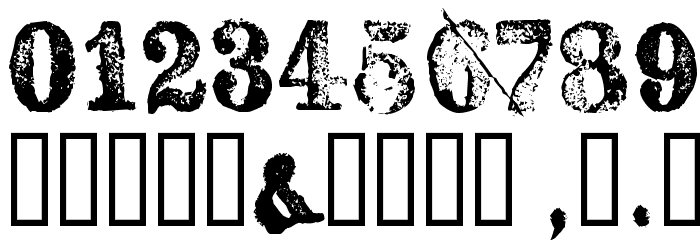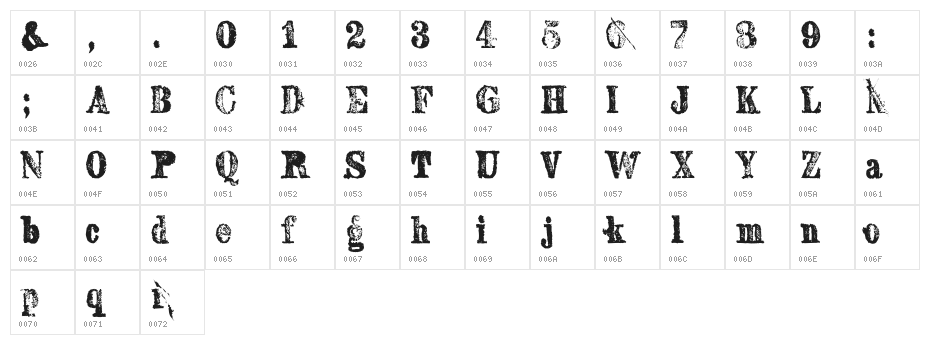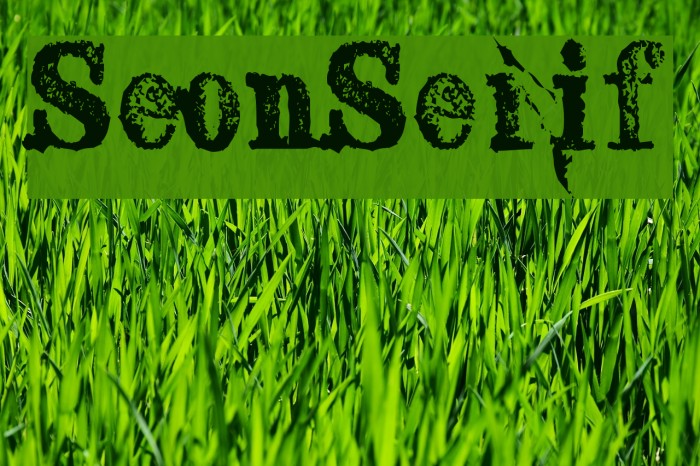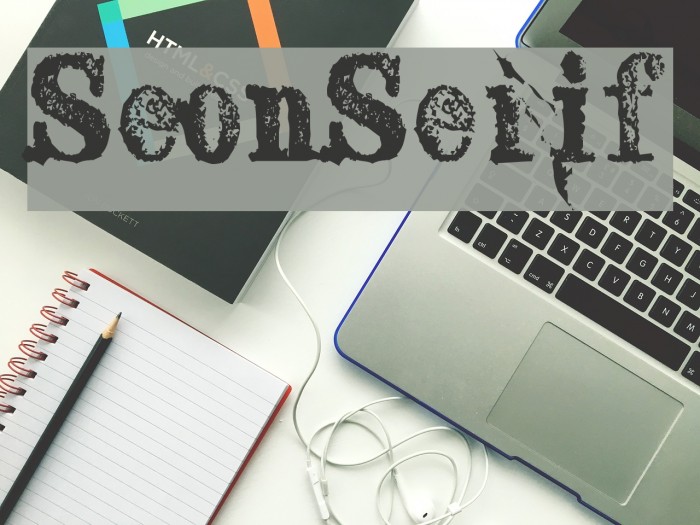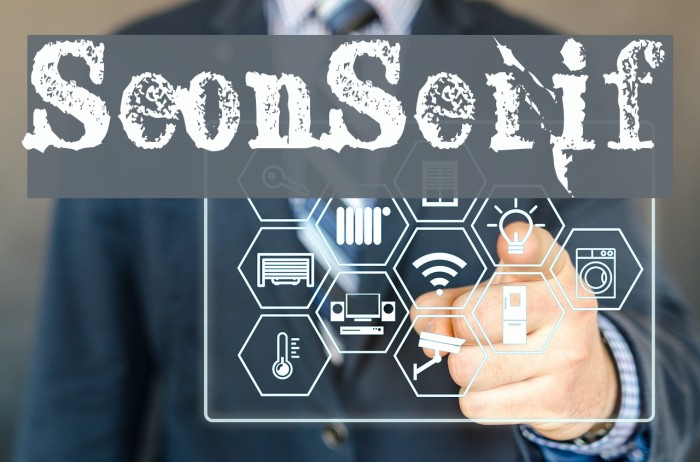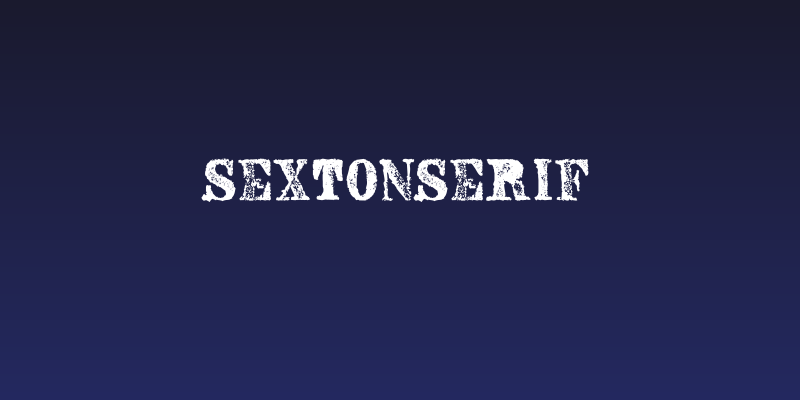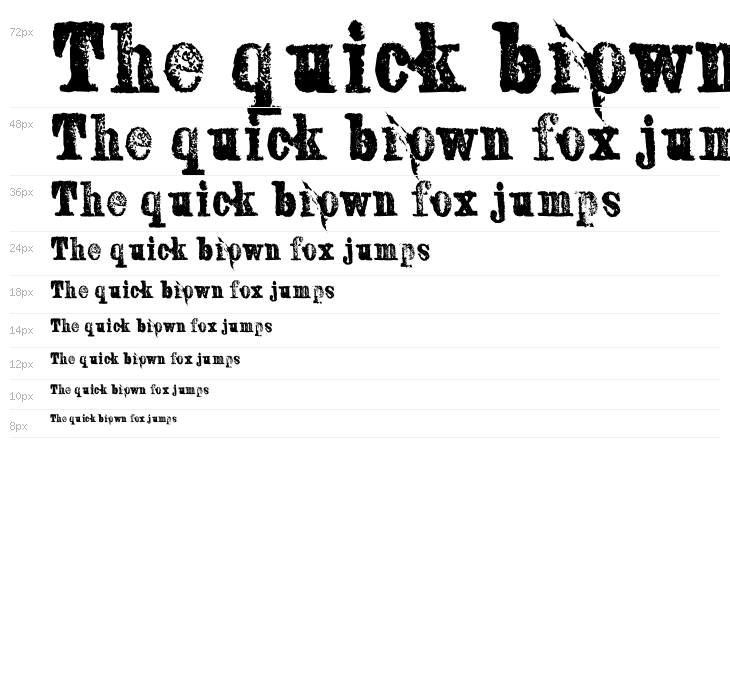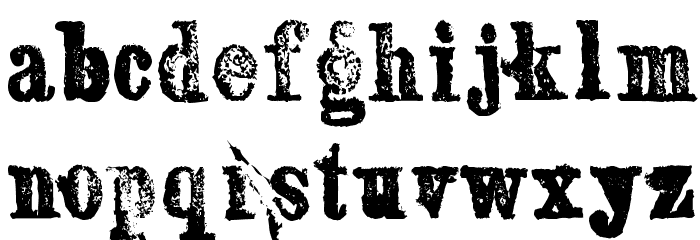
SextonSerif Font
SextonSerif Description
This font features a distressed, textured appearance that gives it a rugged, vintage feel. The characters are bold and impactful, with a weathered look that suggests age and history. The uppercase and lowercase letters maintain a consistent style, with rough edges and a slightly uneven baseline that adds to the rustic charm. The numbers and special characters follow the same design, making the font versatile for various creative projects. Its unique style makes it stand out, ideal for designs that require a strong, nostalgic aesthetic.
Overall StyleVintage
Proposed ProjectsIdeal for vintage posters, album covers, branding for rustic or retro-themed businesses, and creative projects that require a bold, historical aesthetic.